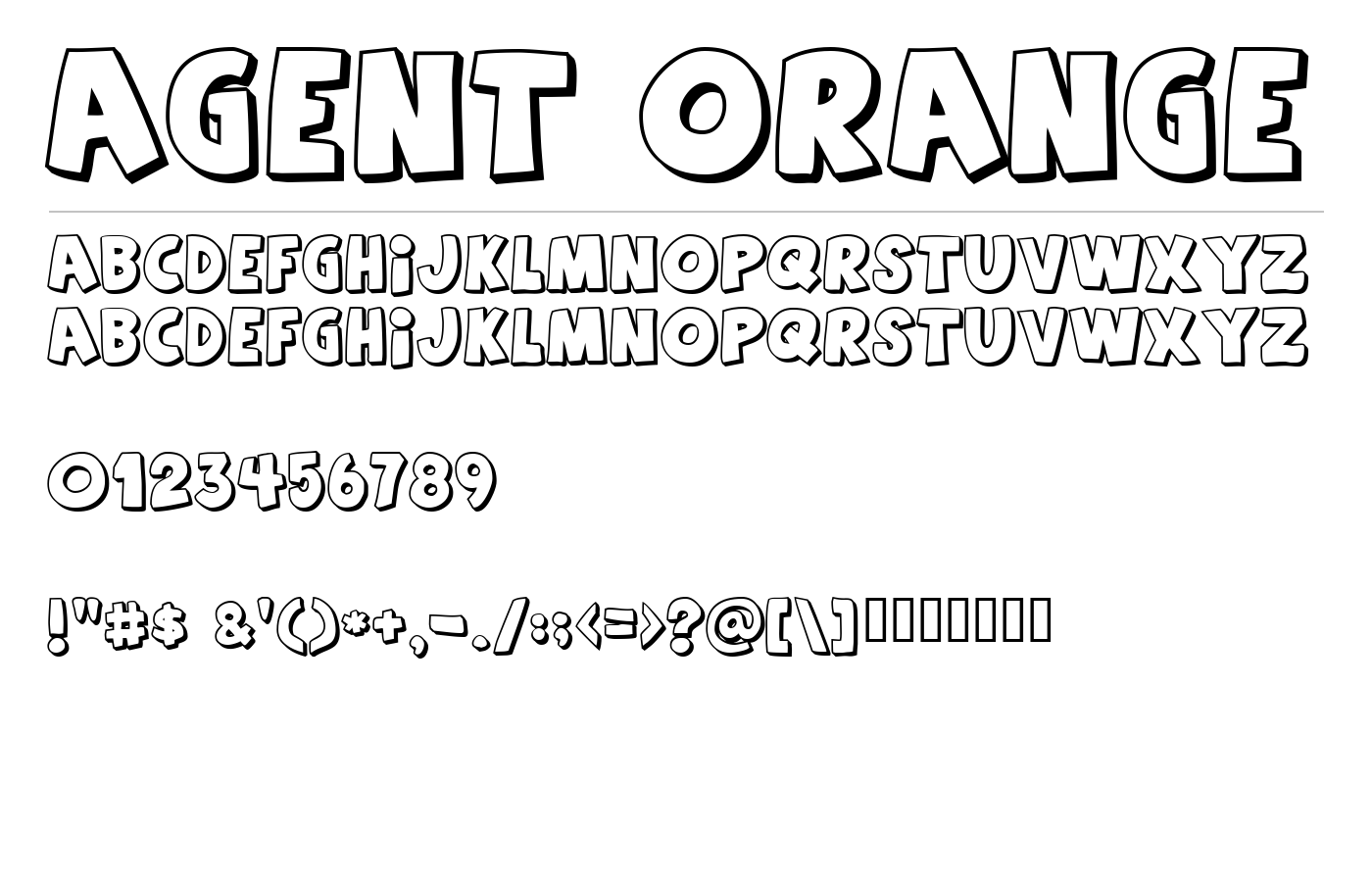
Agent Orange is a playful, bold sans serif font with a cartoonish, hand-drawn feel. Its chunky letterforms feature a slight 3D shadow effect, giving it a fun and energetic personality perfect for comics, children's books, casual branding, and eye-catching headlines. This font works well where a lively, informal tone is desired, bringing a sense of whimsy and approachability.
Agent Orange Font
About Agent Orange Font